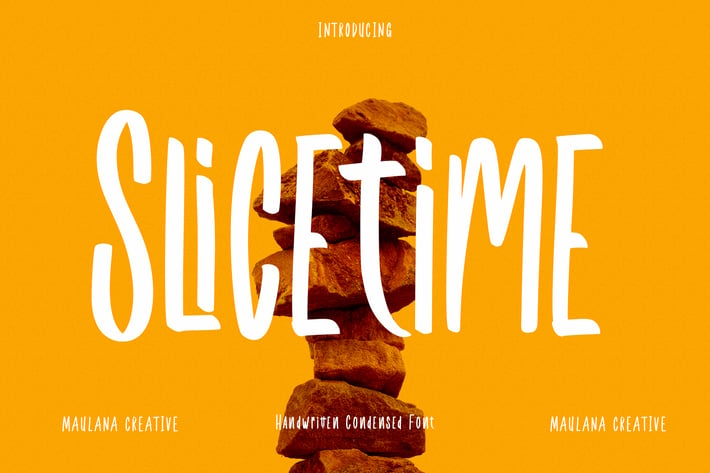
Slicetime Handwritten Font
Slicetime is narrow handwritten font. With regular stroke, fun character with a bit of ligatures and alternates. To give you an extra creative work. Slicetime font support multilingual more than 100+ language. This font is good for logo design, Social media, Movie Titles, Books Titles, a short text even a long text letter and good for your secondary text font with sans or serif. Make a stunning work with Slicetime font.